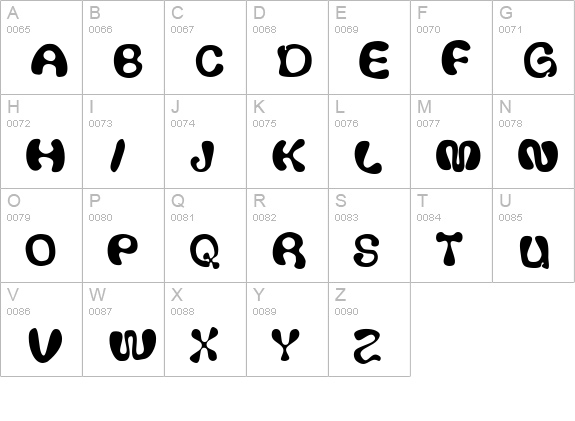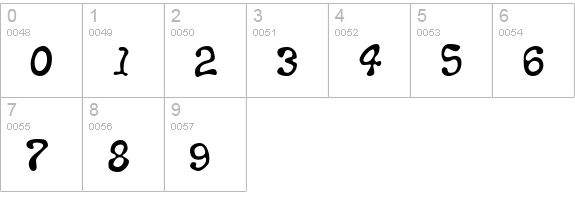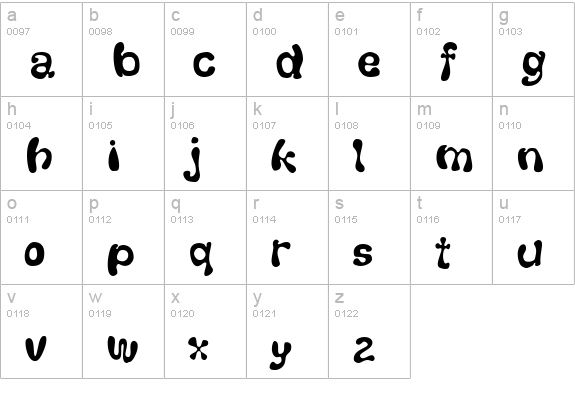
Introducing Thickhead font, a bold and powerful typeface that is sure to make a statement in any design project. With its thick, sturdy letterforms and commanding presence, this font exudes confidence and strength. Whether used for headlines, logos, posters, or any other creative endeavor, Thickhead demands attention and leaves a lasting impression. This versatile font is perfect for a wide range of applications. Its clean lines and distinct character make it ideal for both modern and traditional designs. Whether you're looking to create a sleek and contemporary look or a more classic and timeless aesthetic, Thickhead has you covered. But what makes Thickhead even more appealing is that it is freely available to download at FontsMarket.com. Yes, you heard that right – this exceptional font can be yours at absolutely no cost. Say goodbye to expensive font licenses and hello to the freedom of creativity. With Thickhead, you can unleash your design ideas without constraints. Not only is Thickhead free, but it also offers a wide range of weights and styles to choose from. Whether you prefer a bold and impactful look or a more subtle and refined approach, this font has the versatility to meet your needs. From Light to Extra Bold, from Italic to Condensed, Thickhead lets you experiment and find the perfect fit for your project. But Thickhead is not just about its striking appearance and affordability. This font is also highly legible and readable, ensuring that your message is conveyed clearly and effectively. Its well-designed letterforms and balanced proportions make it easy on the eyes, even in longer text passages. So why wait? Download Thickhead font today from FontsMarket.com and elevate your designs to new heights. Whether you're a professional designer or a passionate hobbyist, this font is a must-have in your typographic toolbox. Embrace the power and versatility of Thickhead and let your creativity soar.